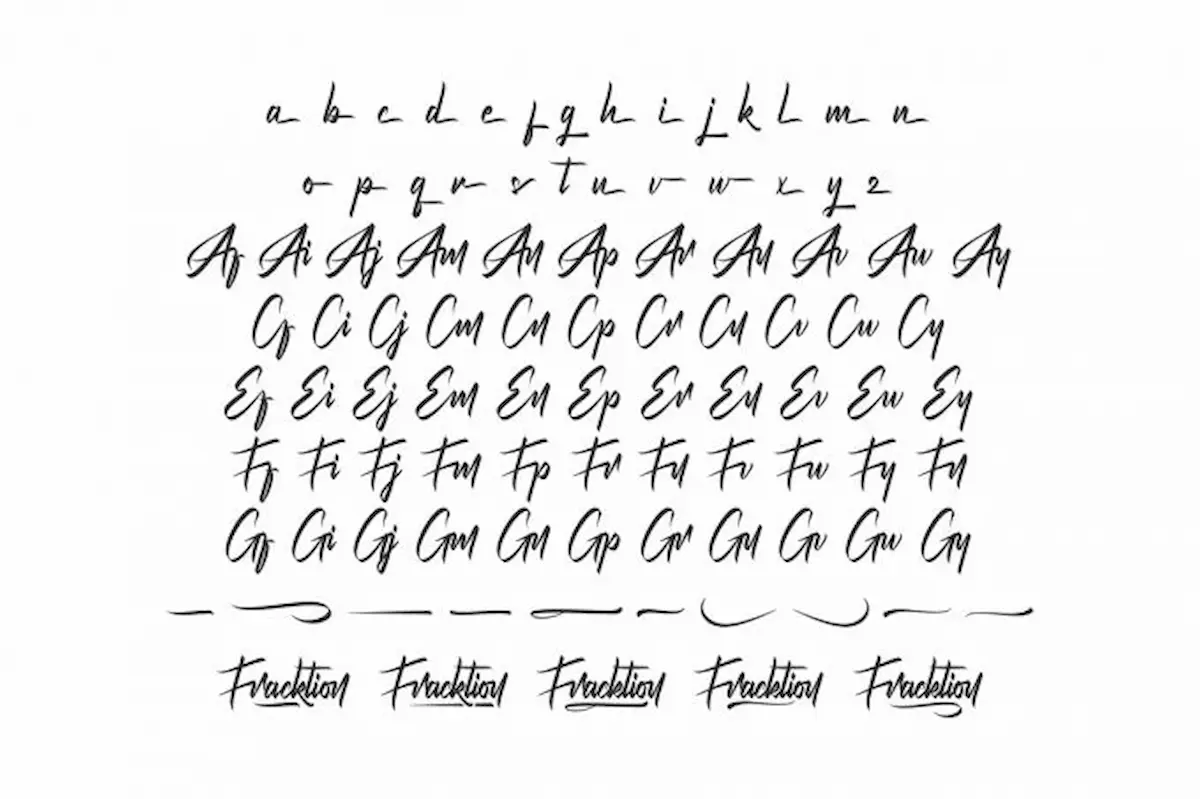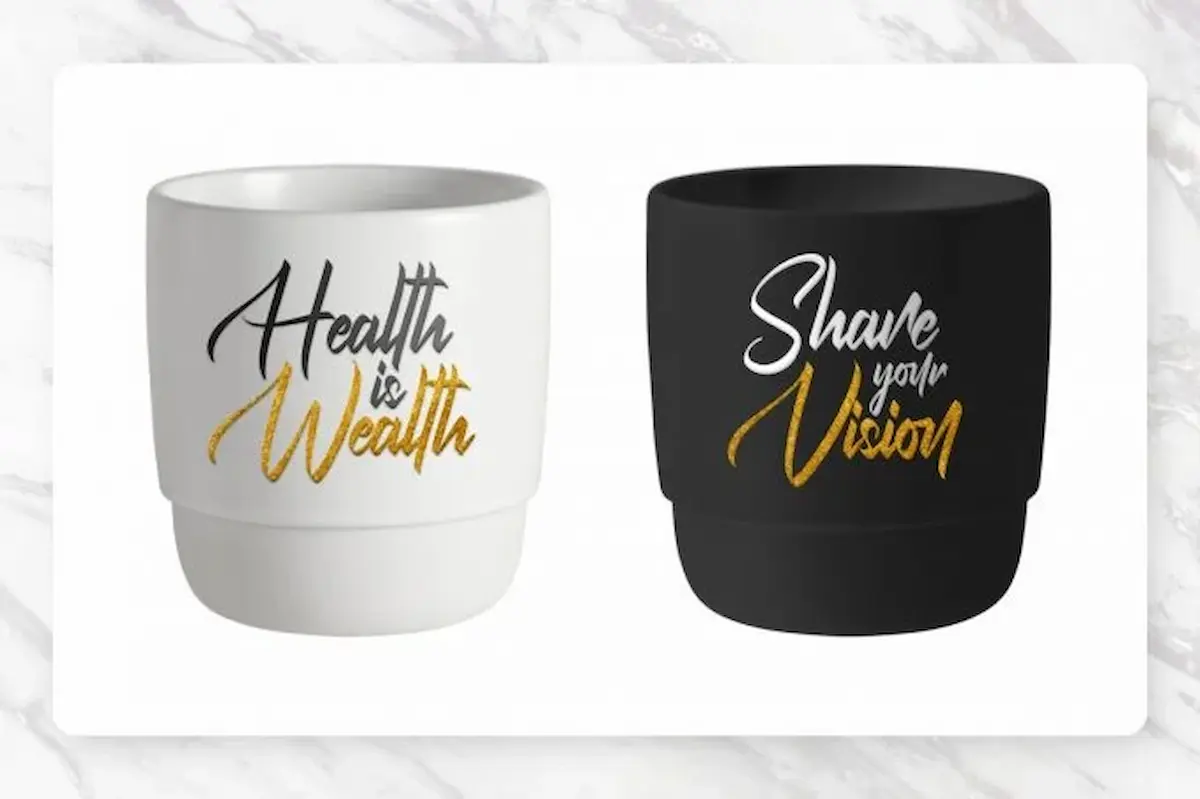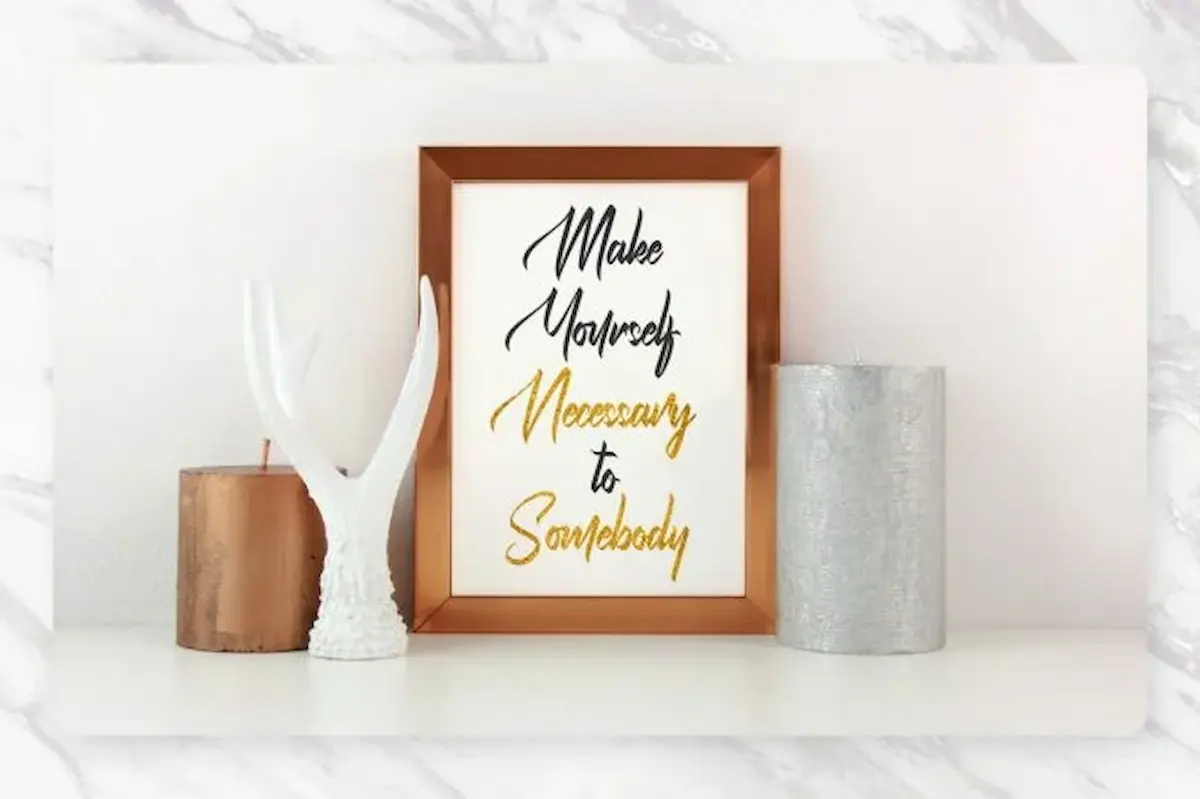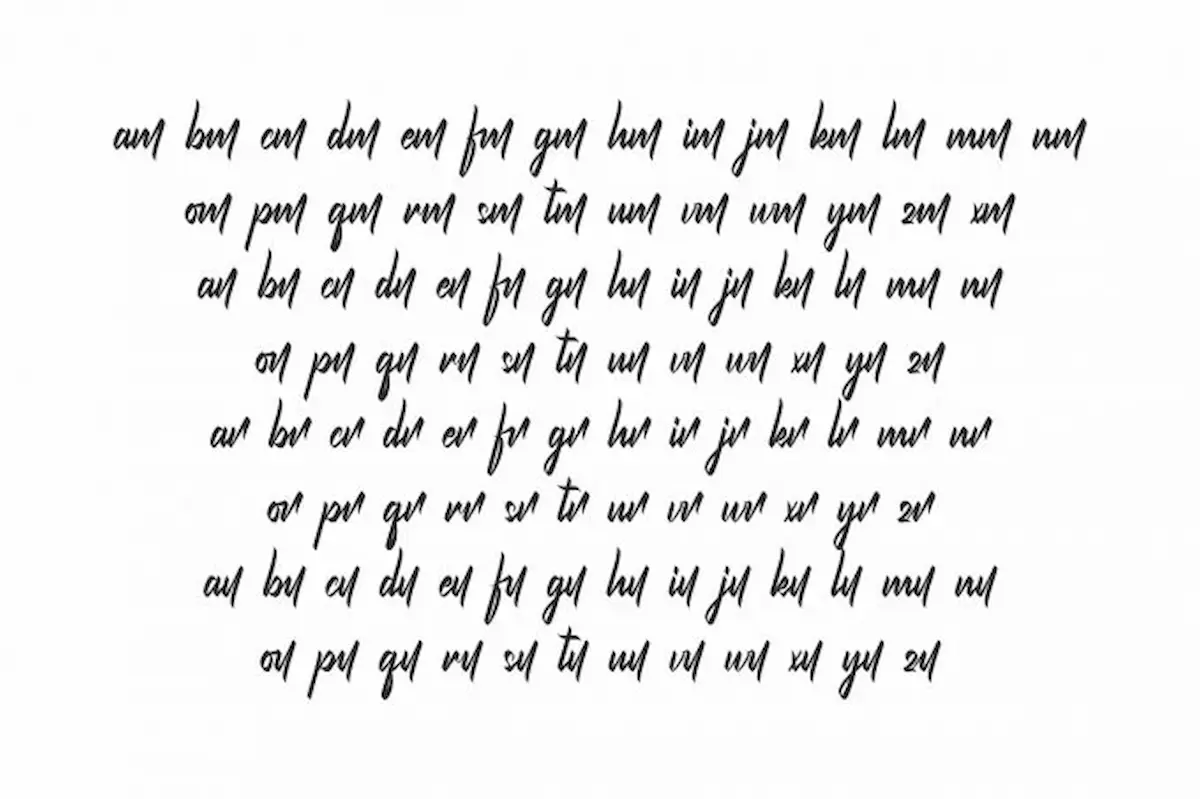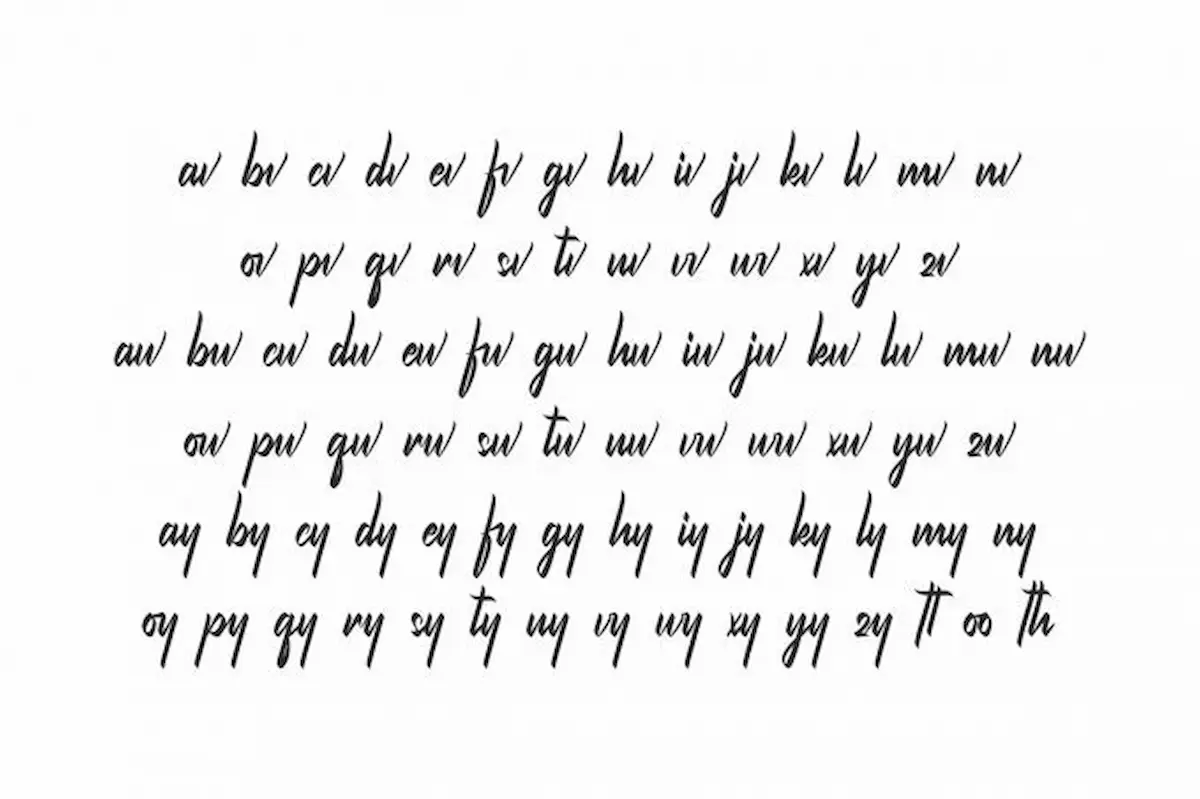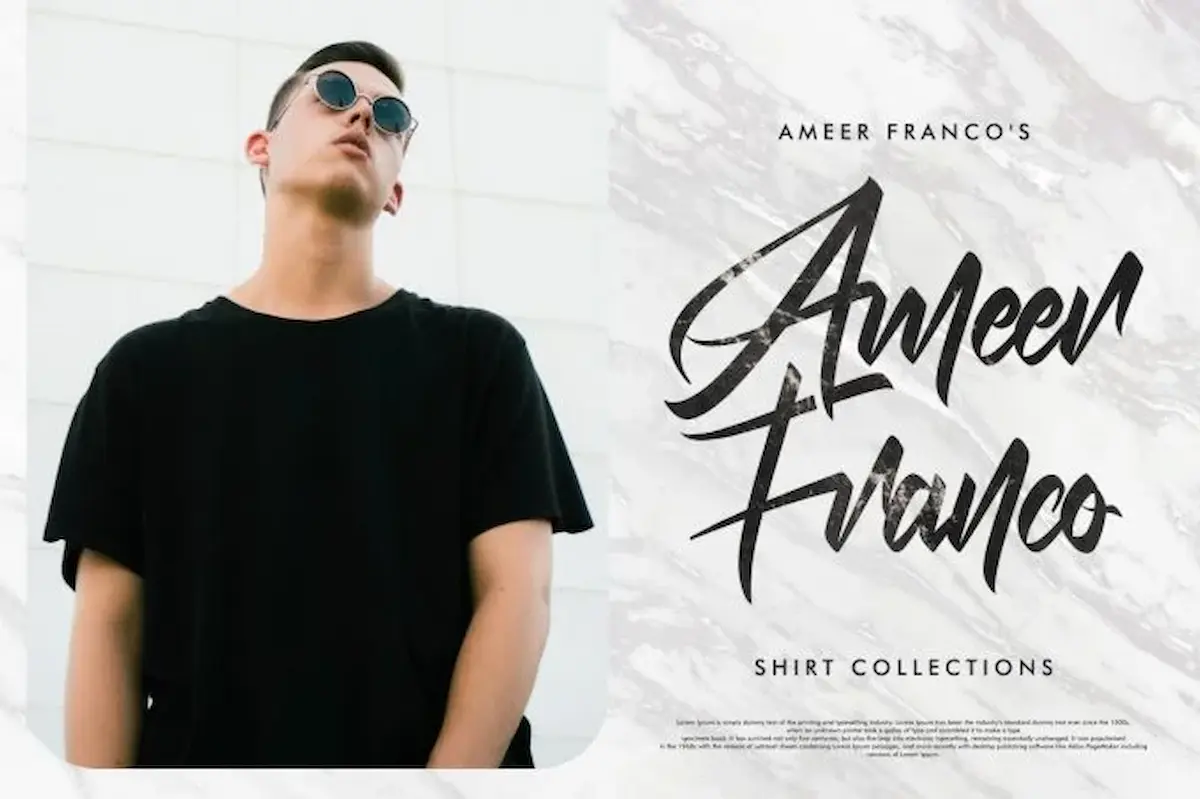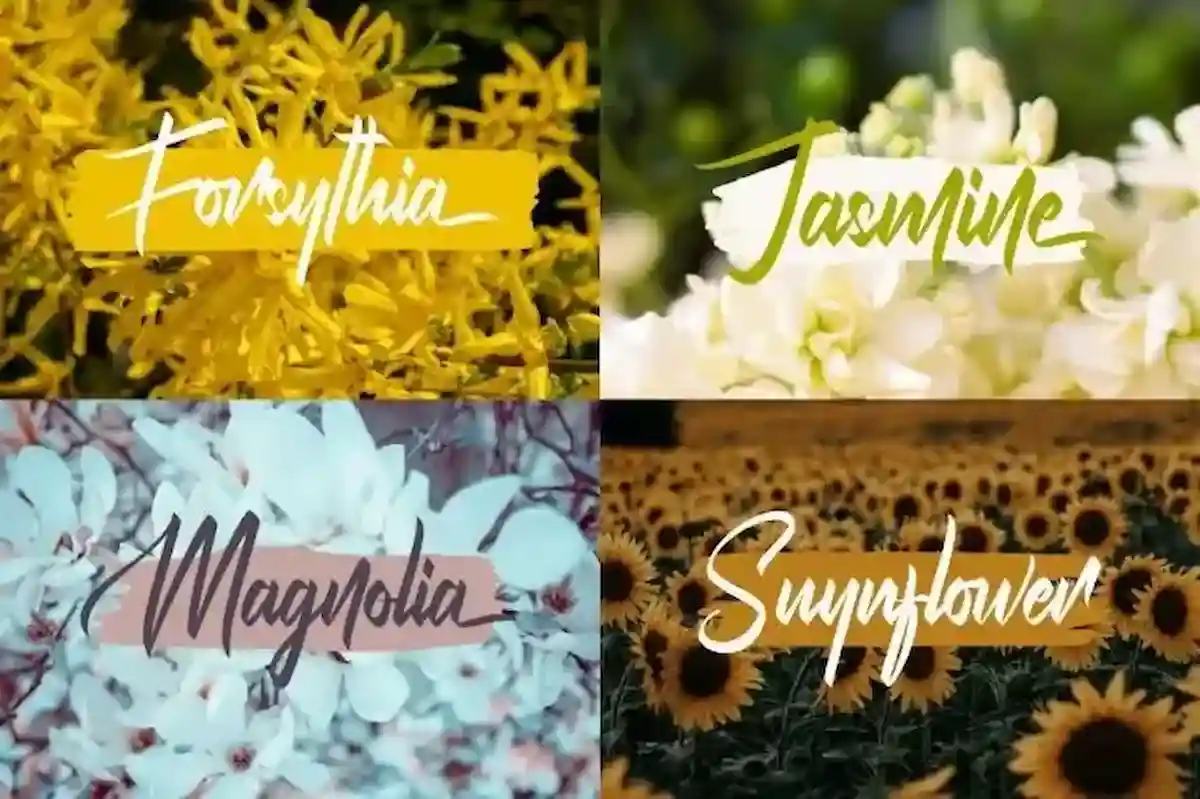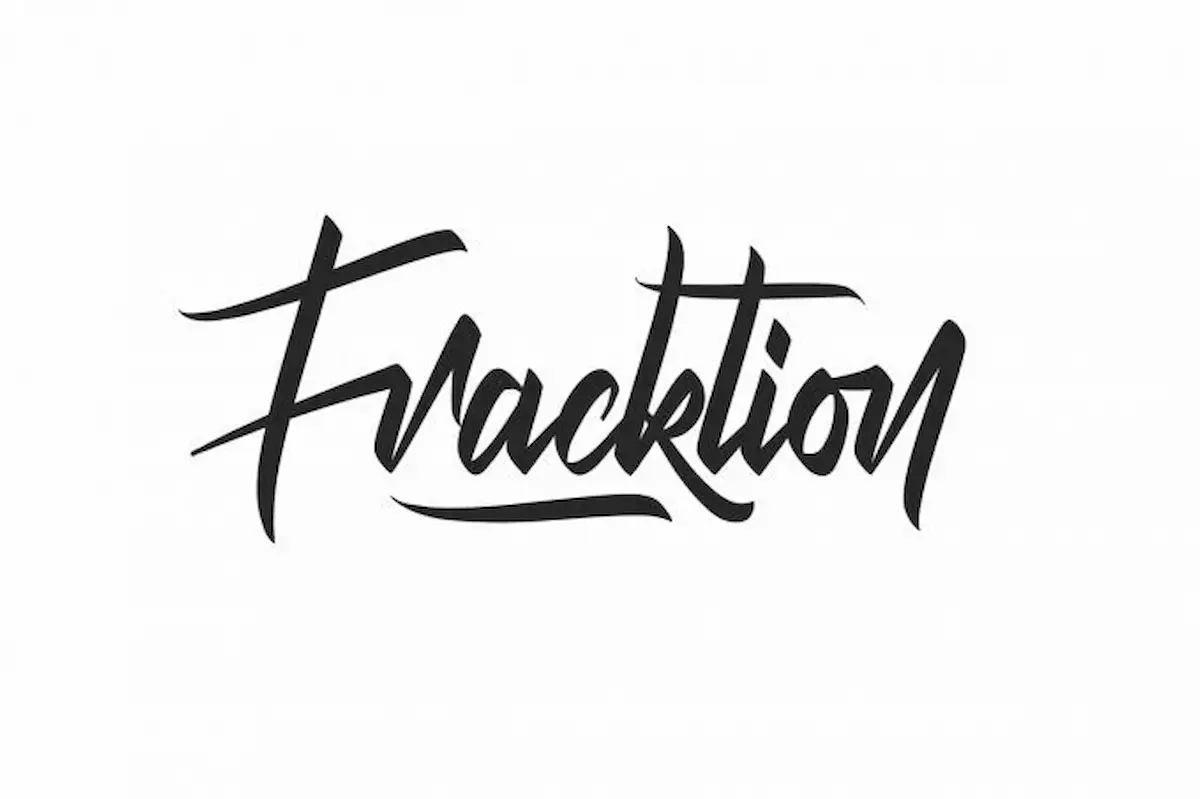
Fracktion Font is a classic handmade calligraphy font by NihStudio. <span style=”text-decoration: underline;”>Fracktion Font was beautifully made for special projects : branding, promotion etc
Fracktion Font is a luxurious and exclusive calligraphy script font, created by NihStudio in Garut-Bandung, Indonesia during the 2020 work-from-home period. This elegant brush typeface blends classic handwriting style with vintage charm, making it the perfect choice for high-end design needs.
Use Fracktion for branding, logo design, wedding invitations, product packaging, signage, flyers, brochures, and social media content. Its timeless, sophisticated style fits a variety of industries such as fashion, real estate, florists, beauty, hotels, musicians, event planners, and sports teams.
This elegant calligraphy script font brings a classic brush style with a modern edge, making your projects feel premium, artistic, and expressive.